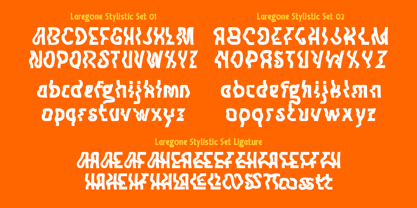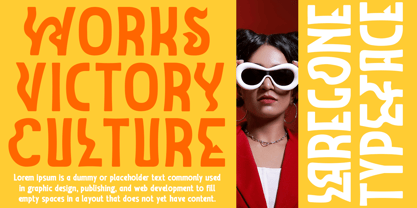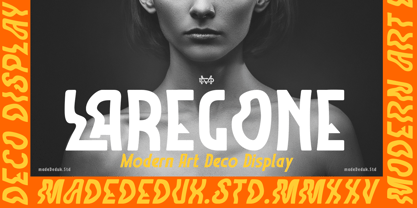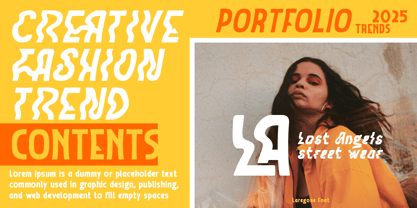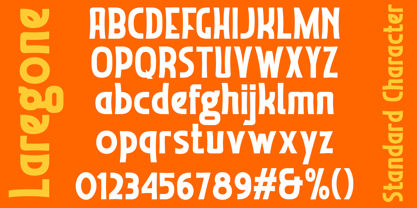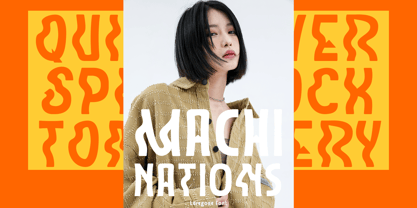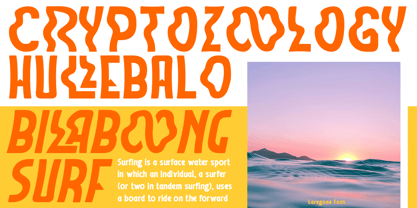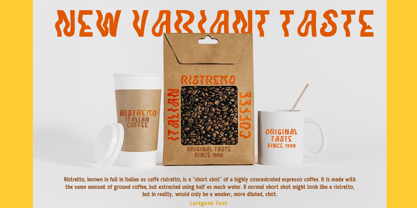
Laregone
The Laregone Font Family was designed by madededuk and published by madeDeduk. Laregone contains 2 styles and family package options.
A new modern Art Deco display font with unique, luxury, wave, vintage, and classy look to make their design look more unique and classic. Ligatures and alternative characters to help you create variations for your creative needs. Perfect for branding, logo, apparel, invitations, social media, packaging, label, photography, and any projects.